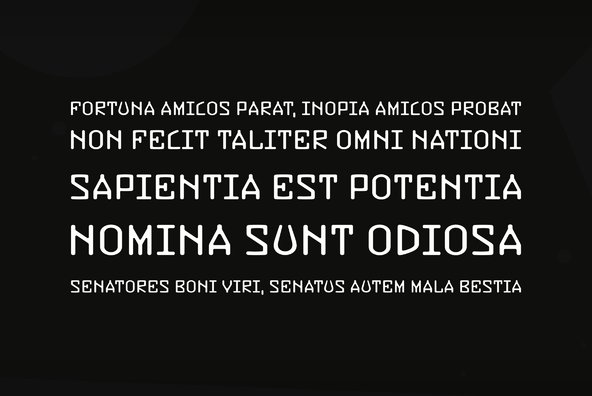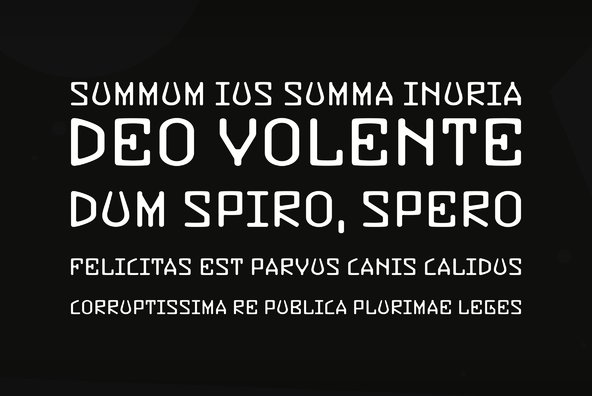
Due to the advent of multi-media and on-screen graphic design, OCR (Optical Character Recognition) fonts are enjoying a major resurgence. Buzzer 3, with its strong futuristic appearance, is very much in the OCR style.
Due to the advent of multi-media and on-screen graphic design, OCR (Optical Character Recognition) fonts are enjoying a major resurgence. Buzzer 3, with its strong futuristic appearance, is very much in the OCR style. However, it contains many interesting design characteristics that separate it from the more predictable geometric styles in this popular category. Designed by Paul Crome and Tony Lyons.